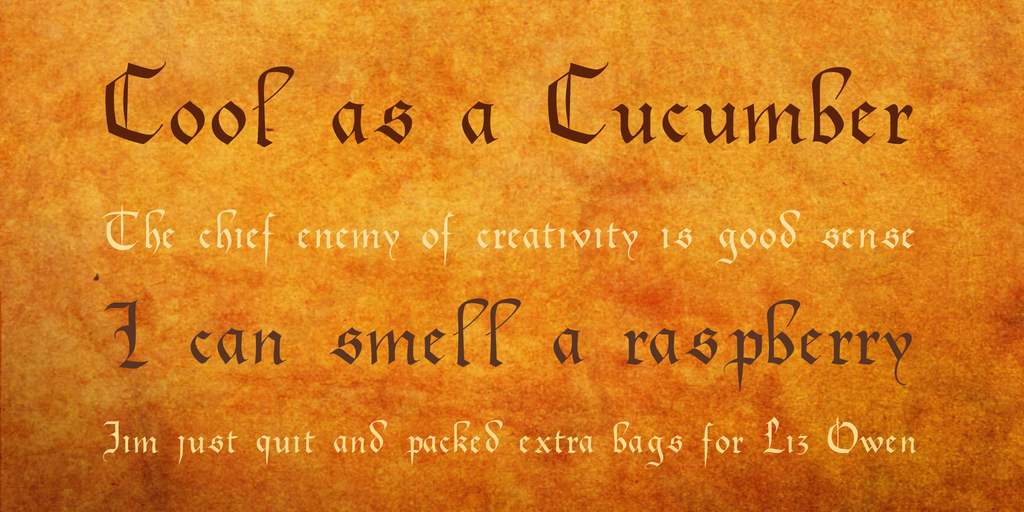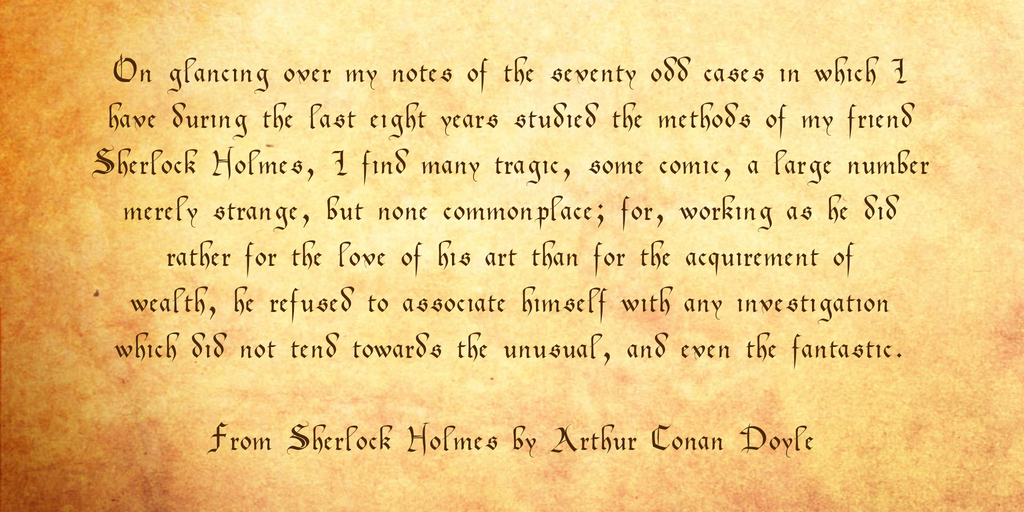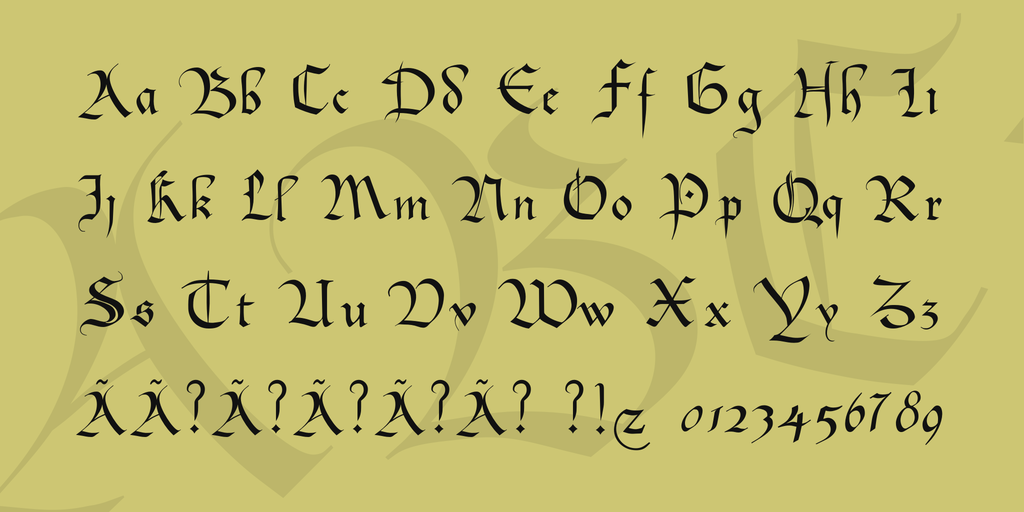
Bastarda Font
Wikipedia says: Bastarda (or bastard or lettre bâtarde in French) was a Gothic script used in France, the Burgundian Netherlands and Germany during the 14th and 15th centuries. The Burgundian variant of script can be seen as the court script of the Dukes of Burgundy and was used to produce some of the most magnificent manuscripts of the 15th century.
The early printers produced regional versions in type which were used especially to print texts in the vernacular languages, more rarely for Latin texts. The earliest bastarda was produced by Gutenberg in 1454/1455. The main variety was the one used in France, which was also found in Geneva, Antwerp and London. Another local variety was found in the Netherlands; Caxton’s first types were a rather poor copy of this. The French lettre bâtarde passed out of use by the mid-16th century but the German variety developed into the national Fraktur type which remained in use until the mid-twentieth century.[1]